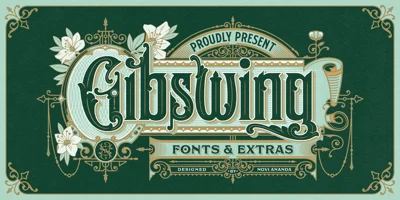
NS Gibswing Font
NS Gibswing Font excels in jazz club branding, vintage music posters, retro album covers, swing dance event promotions, classic cocktail bar menus, 1940s themed restaurants, nostalgic advertising campaigns, and entertainment venues celebrating golden age aesthetics and musical heritage.
NS Gibswing Font generates excitement through its rhythmic letterforms and swing-era character that captures the vibrant energy of jazz age typography. This typeface captivates with its dynamic movement and musical flow, bringing authentic period charm while maintaining contemporary readability for modern applications requiring vintage sophistication.
NS Gibswing Font family includes multiple stylistic variations: Regular, Bold, Light, Condensed, and Ornamental versions. Additional decorative elements, swash capitals, and period-appropriate ligatures provide designers with extensive options for creating authentic jazz-era compositions that swing with musical rhythm and visual harmony.
The musical elegance of NS Gibswing Font makes it essential for projects demanding authentic vintage appeal with contemporary functionality. This display typeface seamlessly bridges historical typography traditions with modern design requirements, delivering exceptional visual impact while honoring the rich cultural heritage of America's jazz age.
Entertainment professionals consistently choose NS Gibswing Font for venues and events celebrating musical heritage. Its swing-era authenticity makes it perfect for jazz clubs, music festivals, vintage-themed establishments, and cultural events where historical accuracy and atmospheric design create memorable experiences. The font's versatile nature ensures stunning performance across all media.
Swing into style with NS Gibswing Font and discover how this exceptional typeface brings jazz-age sophistication and musical rhythm to every project, creating memorable brand experiences that celebrate America's rich musical heritage while captivating contemporary audiences.